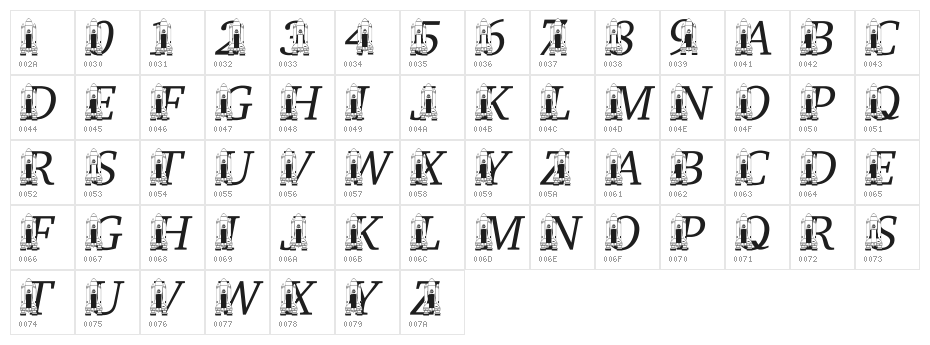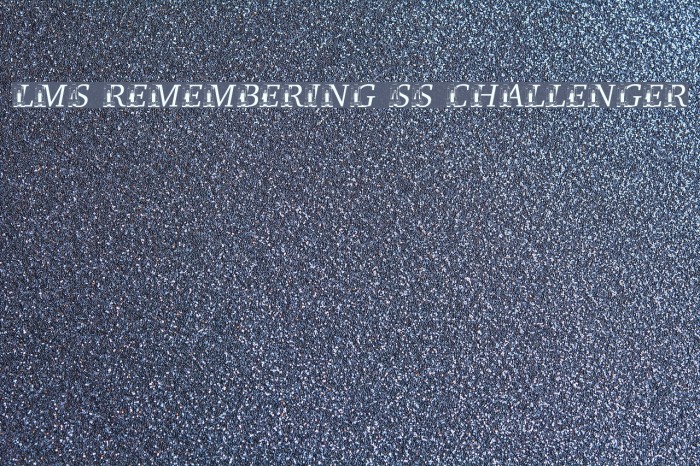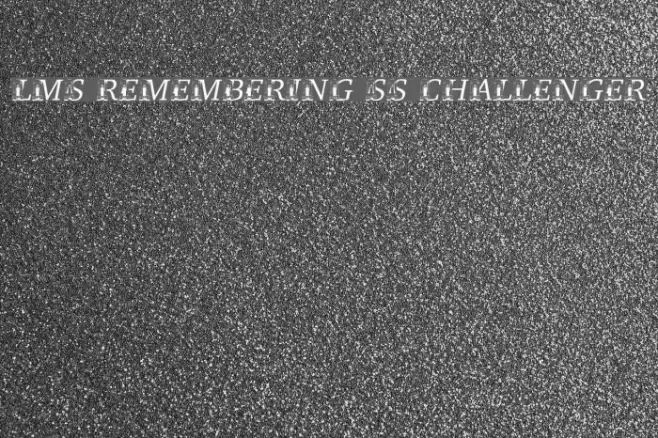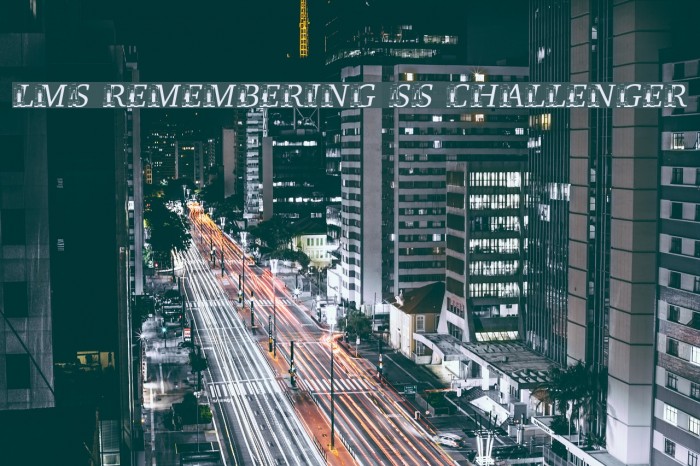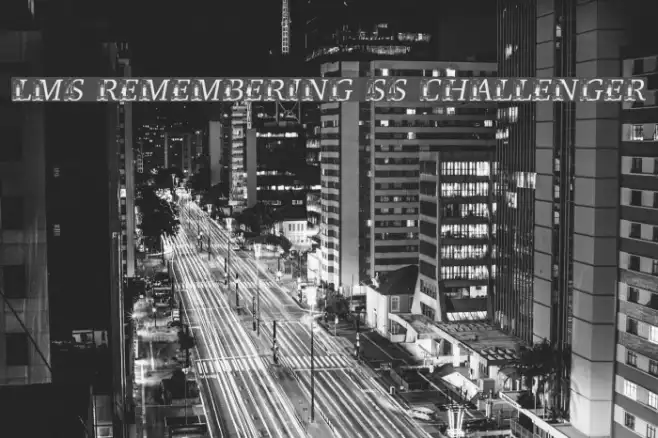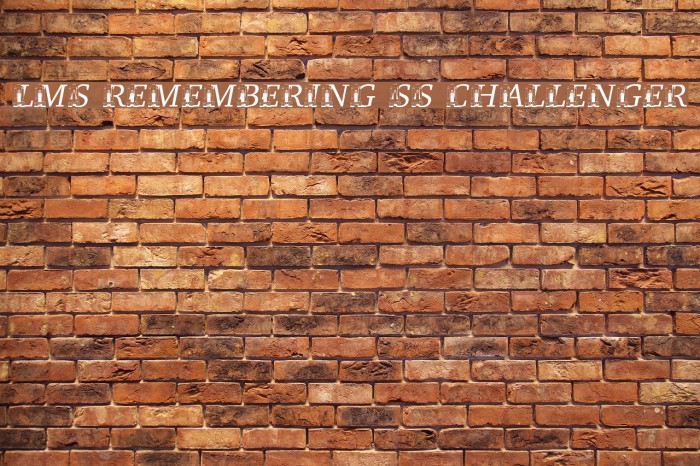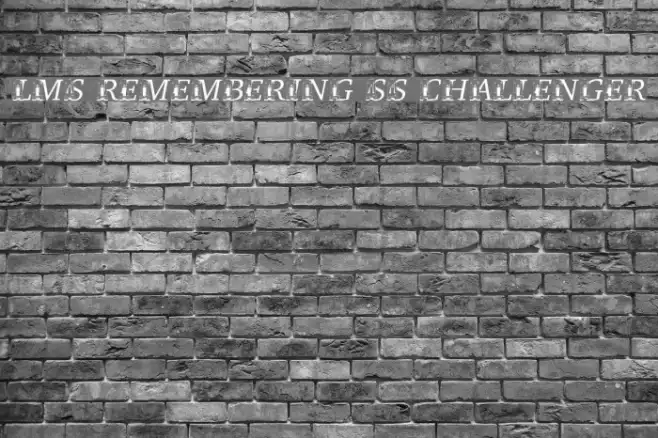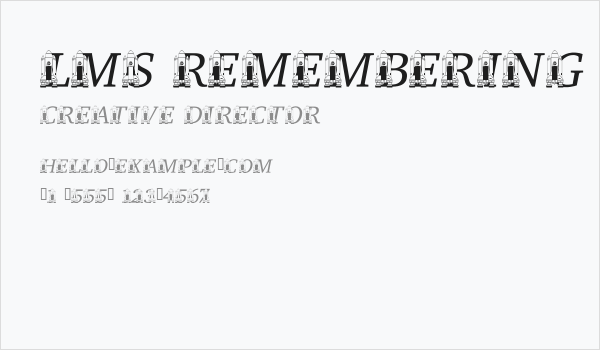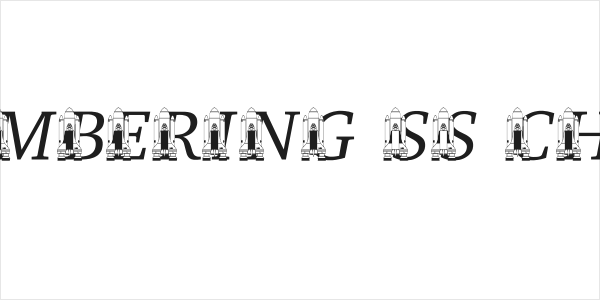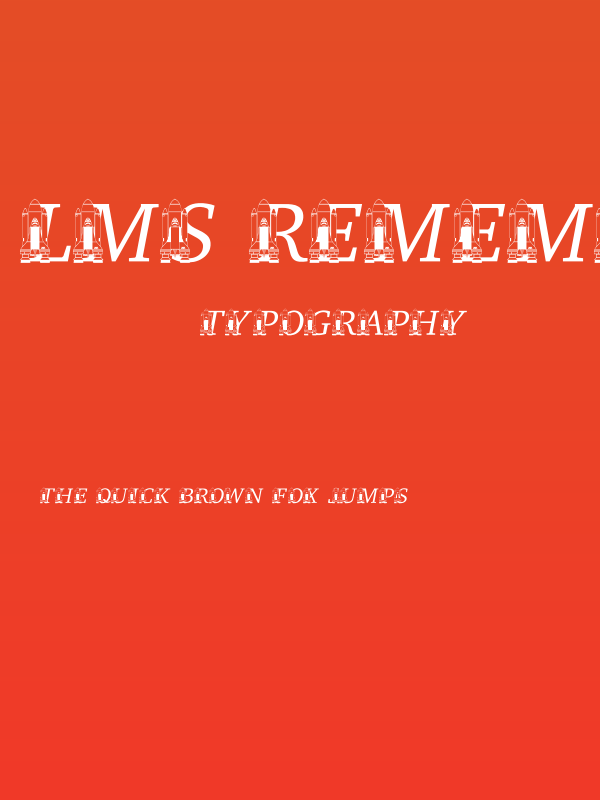
LMS Remembering SS Challenger Font
LMS Remembering SS Challenger Description
This decorative font features a unique design where each character is integrated with a space shuttle motif. The letters and numbers are bold and slightly italicized, giving them a dynamic appearance. The space shuttle imagery is prominent, making the font highly thematic and suitable for projects related to space, science fiction, or commemorative events. The font's distinct style makes it stand out, with each character maintaining legibility while incorporating detailed illustrations.
| Proposed Projects | Ideal for space-themed posters, science fiction book covers, educational materials about space exploration, or commemorative designs. |